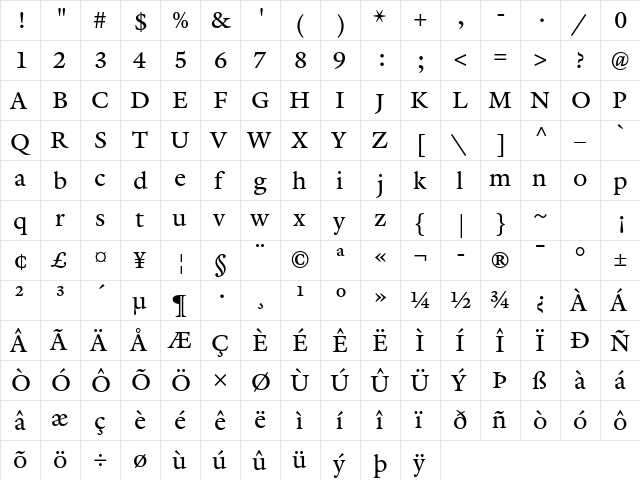
Galliard eText ITC Regular
| Foundry | International Typeface Corporation |
| Designer | Matthew Carter |
Design Context for Galliard eText ITC Typeface
Galliard eText ITC takes a measured approach to typography — its balanced proportions and neutral character make it a reliable workhorse for both digital and print work.